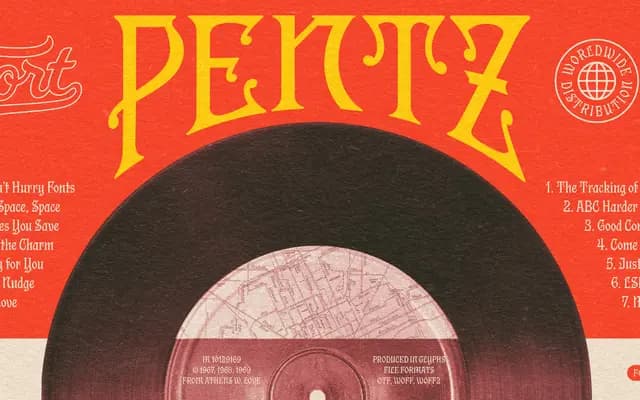
Pentz
Fort Foundry · Brian Brubaker, Mattox Shuler
A two-style revival of Tedesca, a late 19th-century blackletter, developed for the Motown Museum to mark the 50th anniversary of Marvin Gaye's What's Going On.
Designed by Brian Brubaker and Mattox Shuler in collaboration with Commonwealth // McCann, Pentz takes its cues from the lettering on Marvin Gaye's What's Going On album cover, where the original Tedesca type was freely adapted by cover designer Curtis McNair. The Classic style hews closer to the historical source, while Regular introduces a more restrained and reimagined treatment. OpenType features include uppercase and lowercase alternates, case-sensitive punctuation and fractions, with broad Latin extended language support.
Pentz is a revival of Tedesca, a late 19th-century blackletter typeface, offered in two stylistic cuts that vary in fidelity to the historical source.